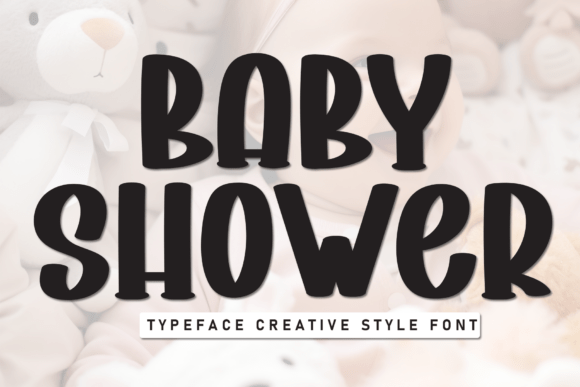
Baby Shower Font: The Perfect Choice for Fun and Playful Designs
Baby showers are a wonderful way to celebrate the upcoming arrival of a new baby, and with the right decorations and invitations, you can make the event even more special. When it comes to creating eye-catching invitations, posters, or branding materials for your baby shower, the font you choose can make all the difference. That’s where the Baby Shower font comes in – a neat and casual display font that radiates fun and relaxation.
What is Baby Shower Font?
Baby Shower is a cheerful typeface that brings a breezy, laid-back feel to any creative project or message. With clean lines and an easygoing vibe, it’s perfect for summer posters, event flyers, and playful branding. This font is designed to evoke a sense of fun and relaxation, making it ideal for baby shower invitations, party decorations, and other celebratory materials.
Key Features of Baby Shower Font
- Clean Lines: Baby Shower font features clean and crisp lines that give it a modern and fresh look.
- Easygoing Vibe: The font has a relaxed and casual feel that’s perfect for creating playful and fun designs.
- Cheerful: The Baby Shower font is designed to bring a sense of joy and celebration to your designs.
- Versatile: This font is suitable for a wide range of design projects, from baby shower invitations to summer posters and event flyers.
Creative Ways to Use Baby Shower Font
The Baby Shower font is perfect for a variety of design projects, including:
- Baby Shower Invitations: Create adorable and playful invitations that set the tone for the celebration.
- Summer Posters: Use the Baby Shower font to create eye-catching posters for summer events, sales, or promotions.
- Event Flyers: Design fun and engaging flyers for parties, festivals, or other events.
- Playful Branding: Incorporate the Baby Shower font into your branding materials, such as logos, business cards, or packaging.
Design Tips for Using Baby Shower Font
To get the most out of the Baby Shower font, follow these design tips:
- Pair with Contrasting Fonts: Combine the Baby Shower font with contrasting fonts to create visual interest and hierarchy.
- Use Bright Colors: Pair the font with bright and cheerful colors to enhance its playful vibe.
- Experiment with Sizes: Play with different font sizes to create emphasis and add visual interest to your design.
- Add Whimsical Elements: Incorporate whimsical elements, such as illustrations or graphics, to enhance the playful feel of the font.
Pairing Baby Shower Font with Other Fonts
To create a unique and visually appealing design, pair the Baby Shower font with other fonts that complement its playful and cheerful vibe. Some font pairing suggestions include:
- Open Sans: A clean and modern sans-serif font that pairs well with the Baby Shower font.
- Lato: A sleek and elegant sans-serif font that provides a nice contrast to the playful Baby Shower font.
- Great Vibes: A fun and adventurous script font that pairs well with the Baby Shower font.
The Baby Shower font is a versatile and playful typeface that’s perfect for creating fun and engaging designs for baby showers, summer posters, event flyers, and playful branding. With its clean lines, easygoing vibe, and cheerful personality, this font is sure to bring a breezy and laid-back feel to any creative project or message. So why not give it a try and see how it can elevate your designs?